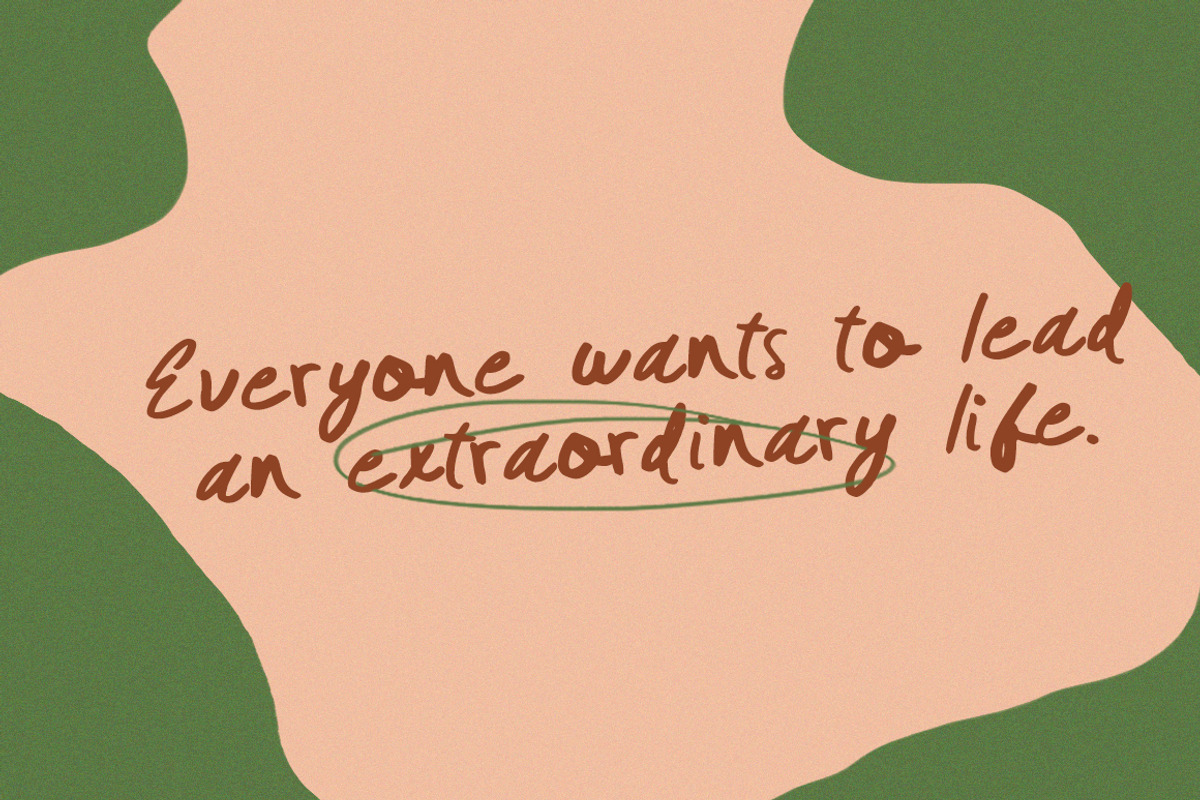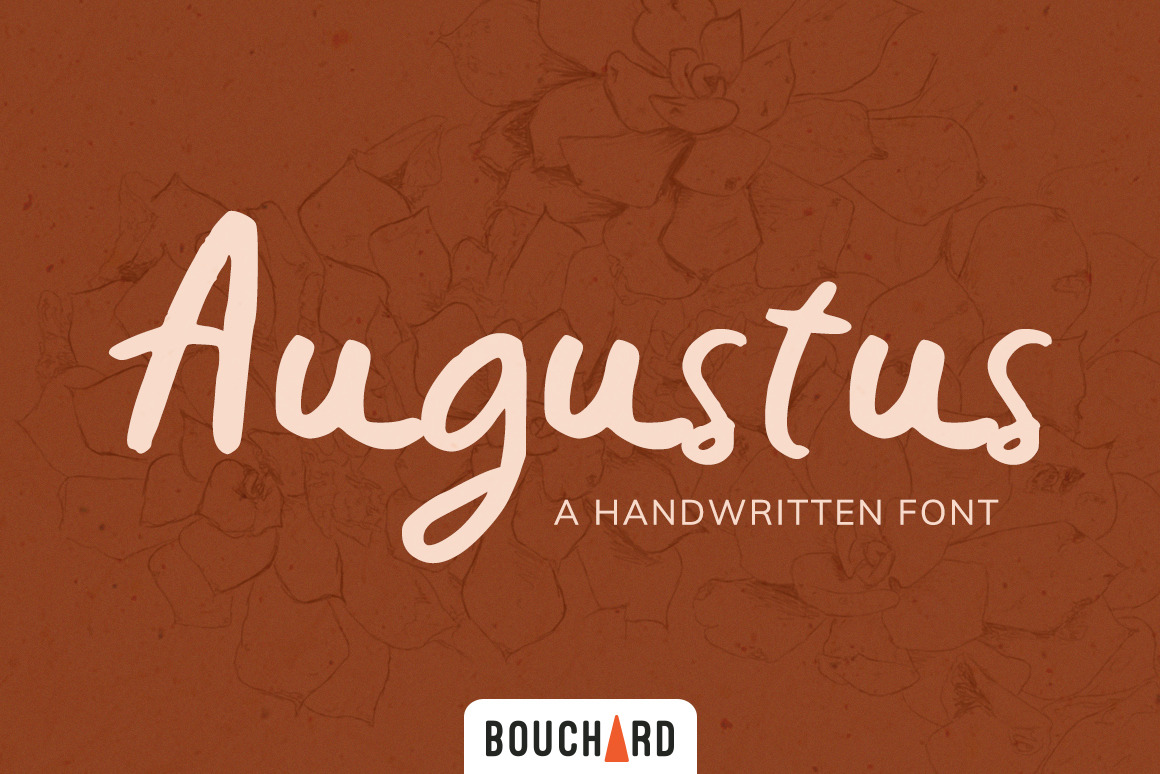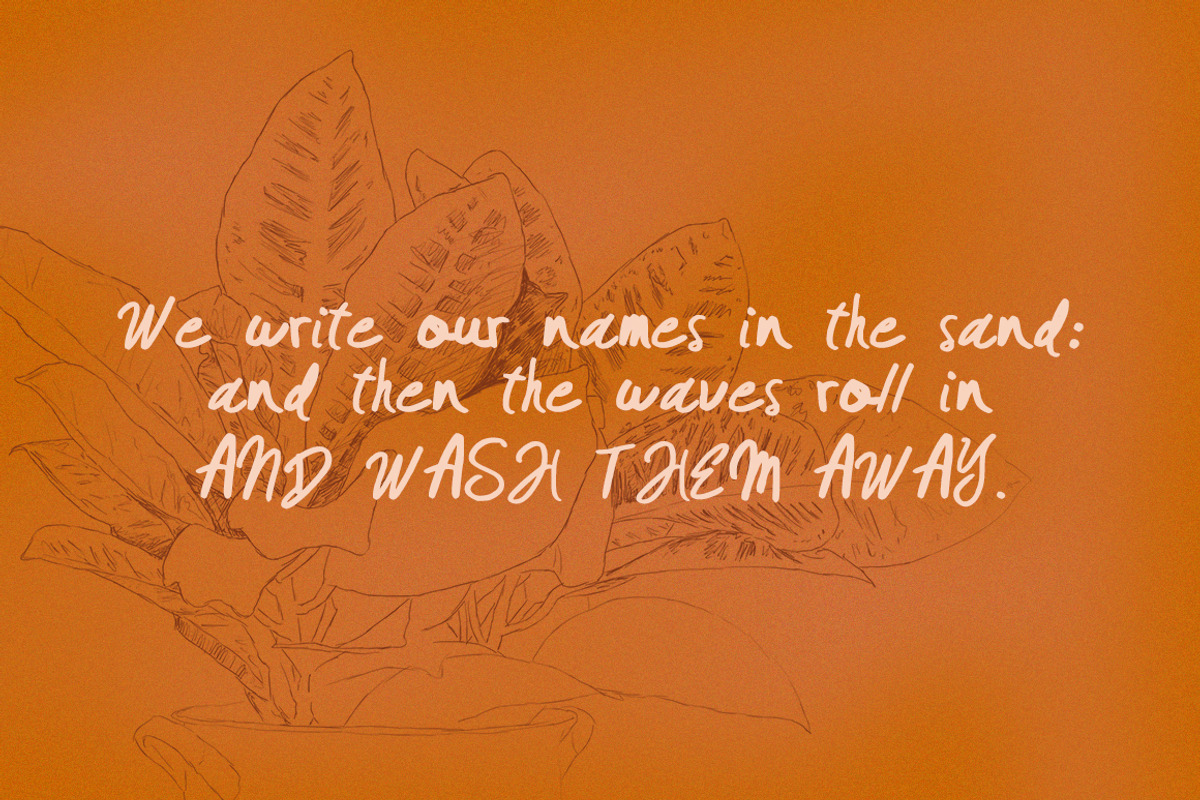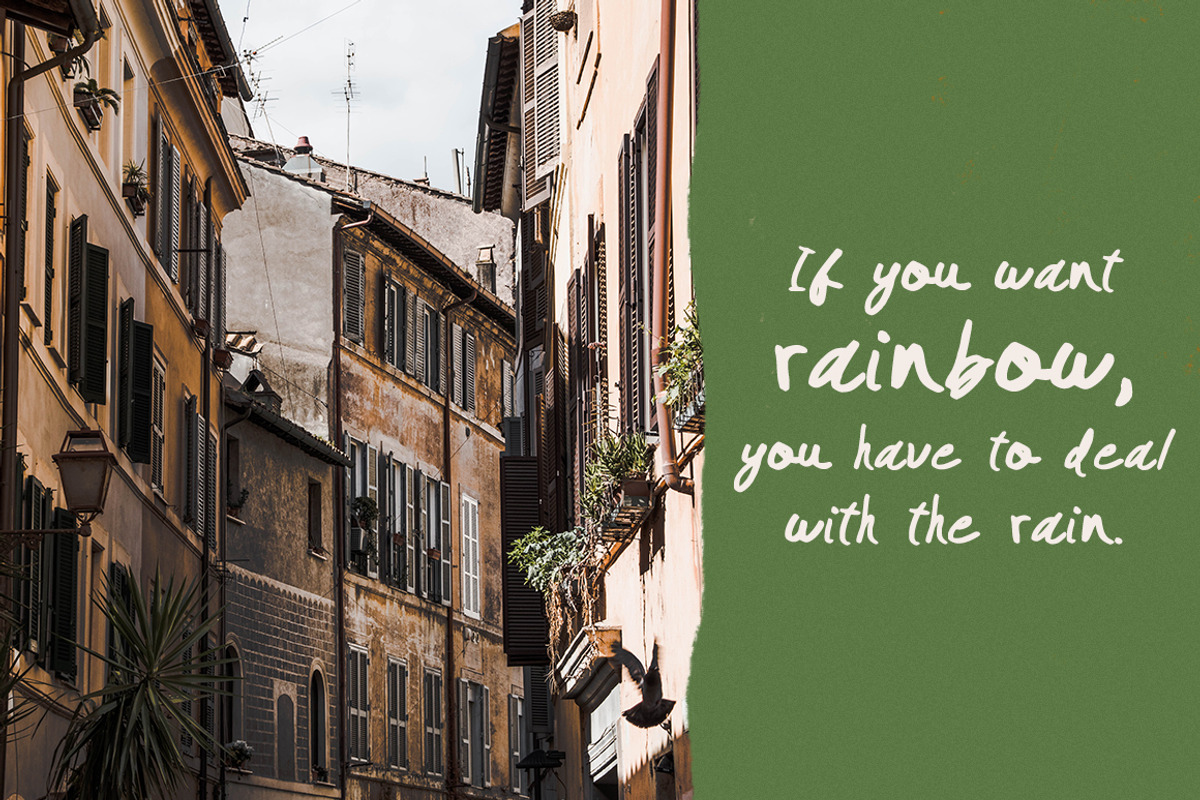
Augustus - A Handmade Font
Augustus is a handwritten display font that comes in uppercase and lower case and includes accents, numbers and punctuation.
Perfect for logo designs, packaging, book covers or any other designs that benefit from bold headings.